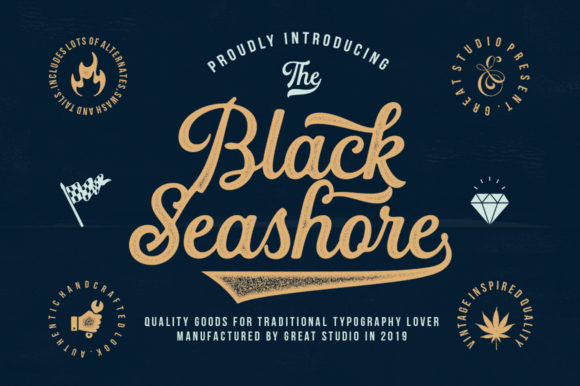
Dive into the depths of Black Seashore, a captivating script font that whispers tales of salty breezes and sandy shores. Crafted with meticulous care by Great Studio, this font is no ordinary typeface; it's a portal to a world of charm and nostalgia.
With its graceful curves and organic flow, Black Seashore evokes the essence of handwritten letters penned with love. Each character dances across the page like a delicate wave, carrying with it a sense of authenticity and artistry. Indulge in the font's vintage allure, reminiscent of seaside postcards and weathered driftwood signs.
Black Seashore possesses an undeniable magnetic pull. Its sweeping strokes and playful flourishes draw the eye, inviting viewers to linger and explore its intricate details. Witness the magic as this font transforms designs into captivating works of art, perfect for branding, posters, wedding invitations, and heartfelt personal messages.
Embrace the versatility of Black Seashore, a font that effortlessly adapts to a symphony of design styles. Its vintage charm shines through in retro and rustic projects, while its modern edge adds a touch of sophistication to contemporary designs. Whether it's a whimsical logo, an elegant flyer, or an enchanting social media post, Black Seashore rises to the occasion, delivering impeccable results every time.
Unleash your creativity and embark on a typographic adventure with Black Seashore. Let your designs radiate timeless beauty and heartfelt charm, leaving an unforgettable impression that lingers long after the page is turned.